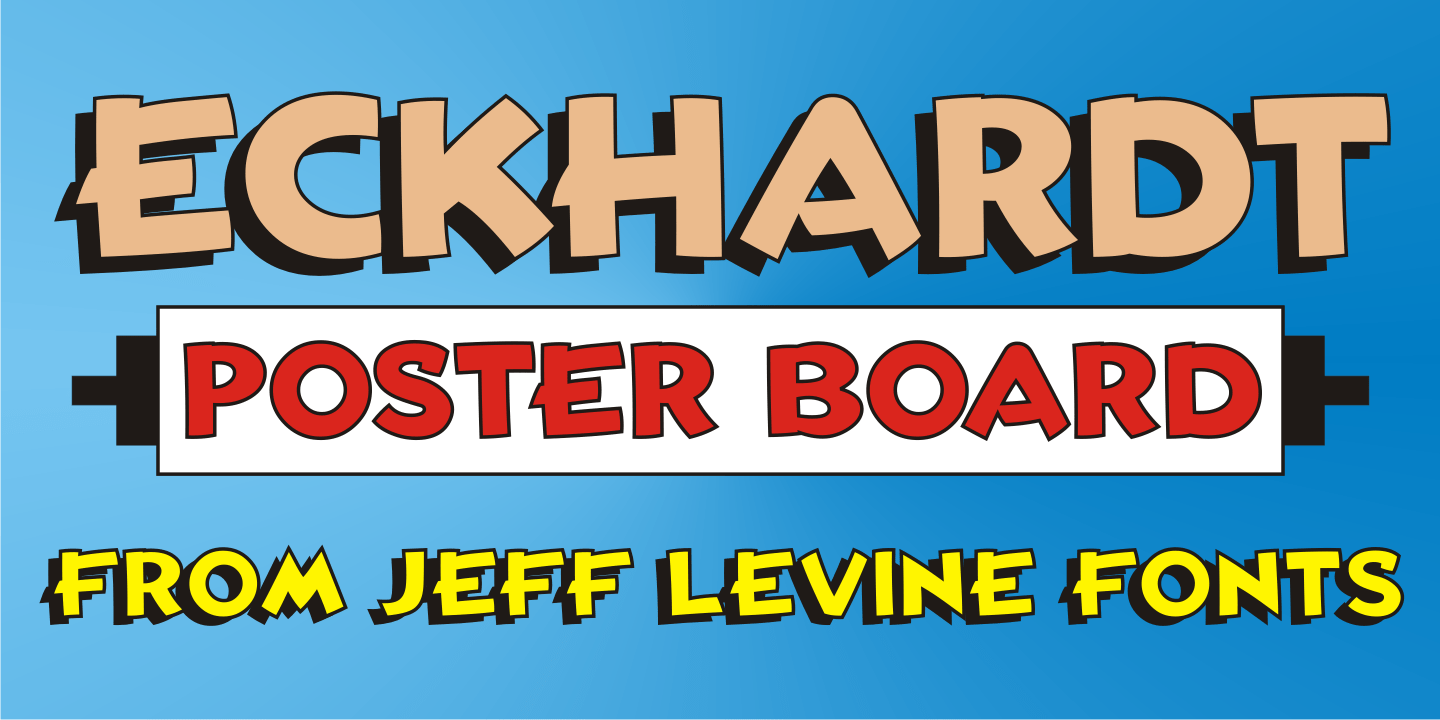
Eckhardt Poster Board
Eckhardt Poster Board JNL further continues Jeff Levine's series of sign painter-oriented fonts, named in honor of his good friend Albert Eckhardt, Jr. (who ran Allied signs in Miami, Florida from 1959 until his passing).
The typeface is a casual brush style, modeled from an image of a do-it-yourself sign making kit comprised of stencils, paint and brush spotted for sale through an online auction.
Eckhardt Poster Board JNL Regular by Jeff Levine Fonts